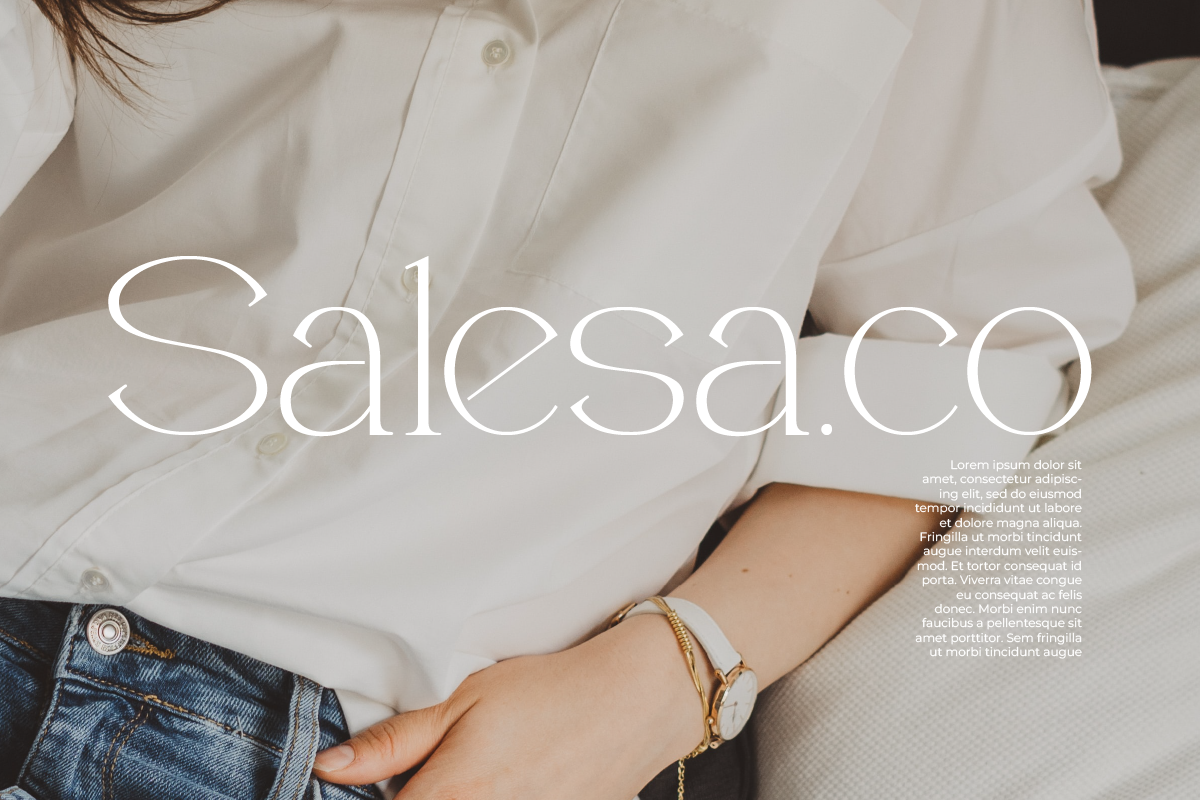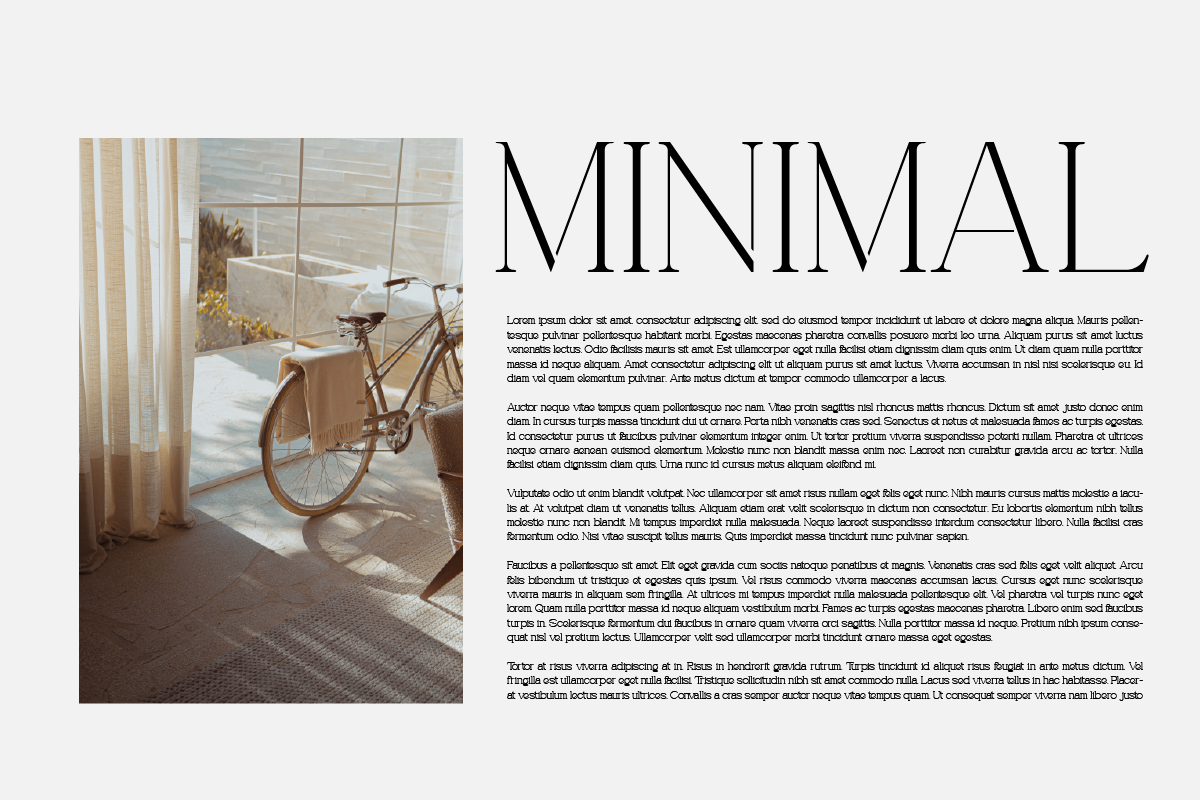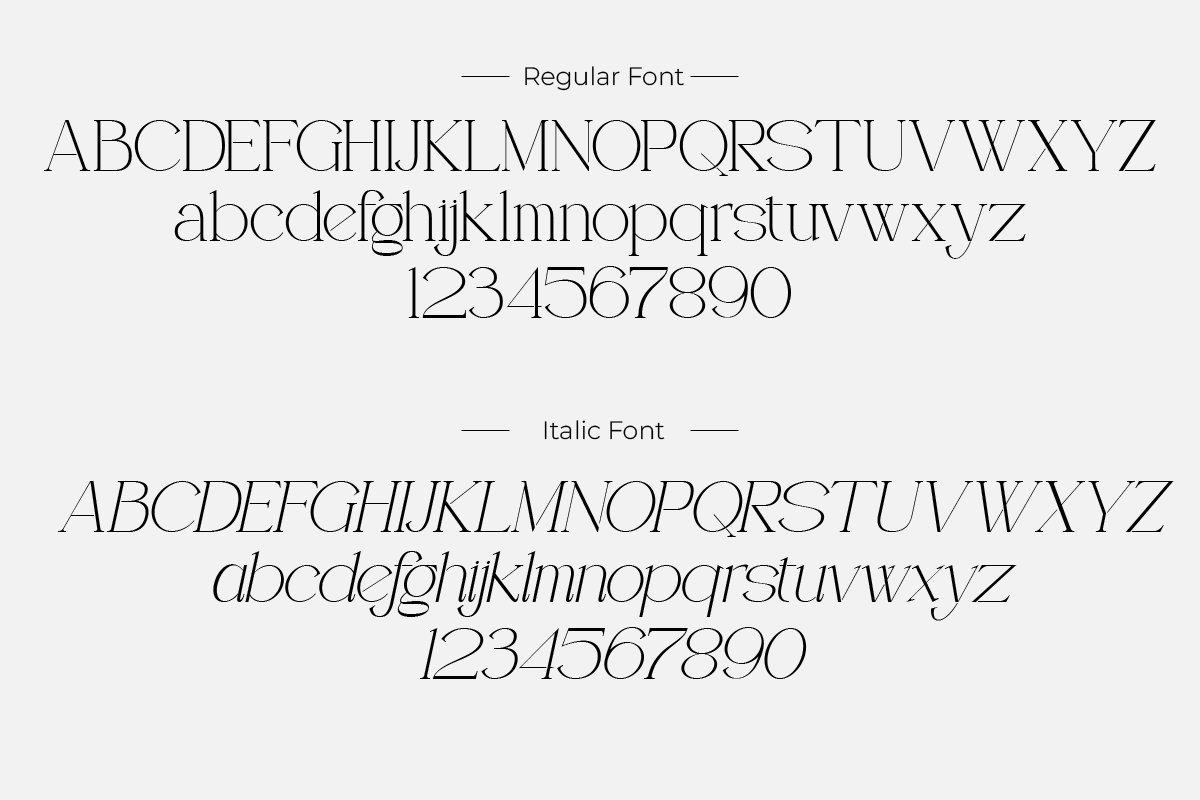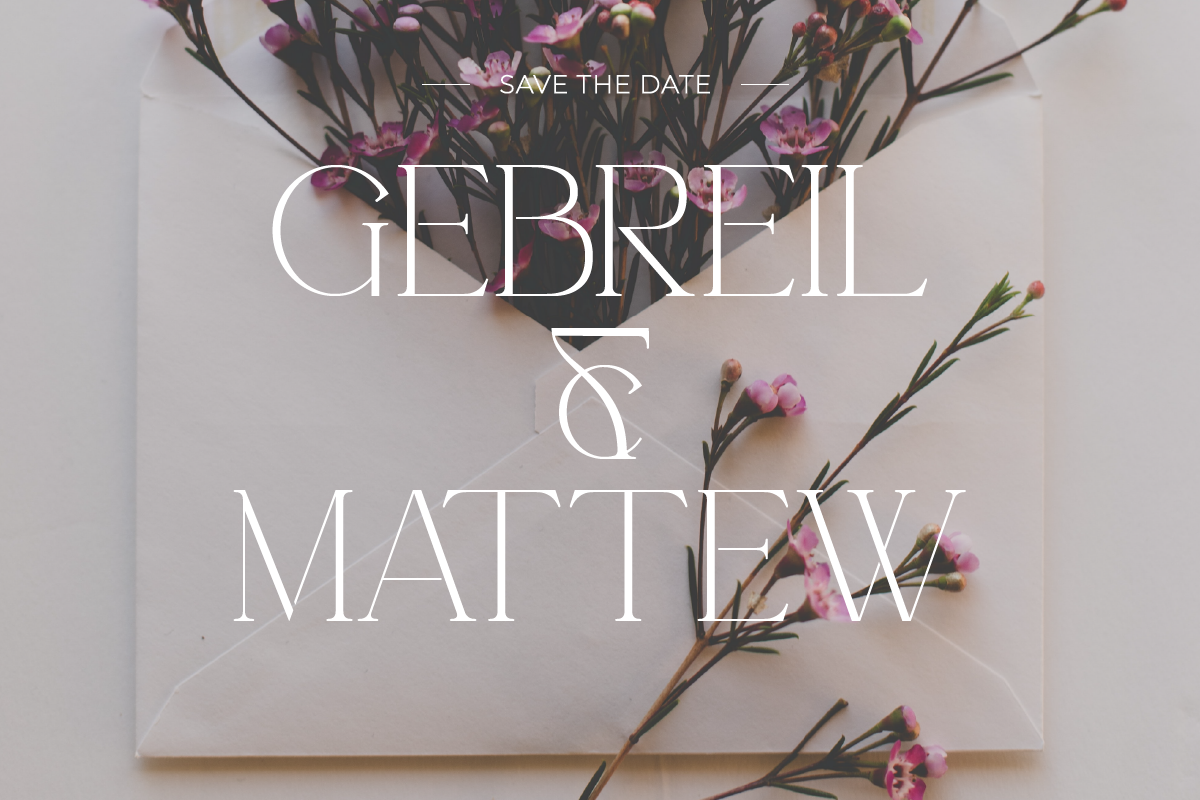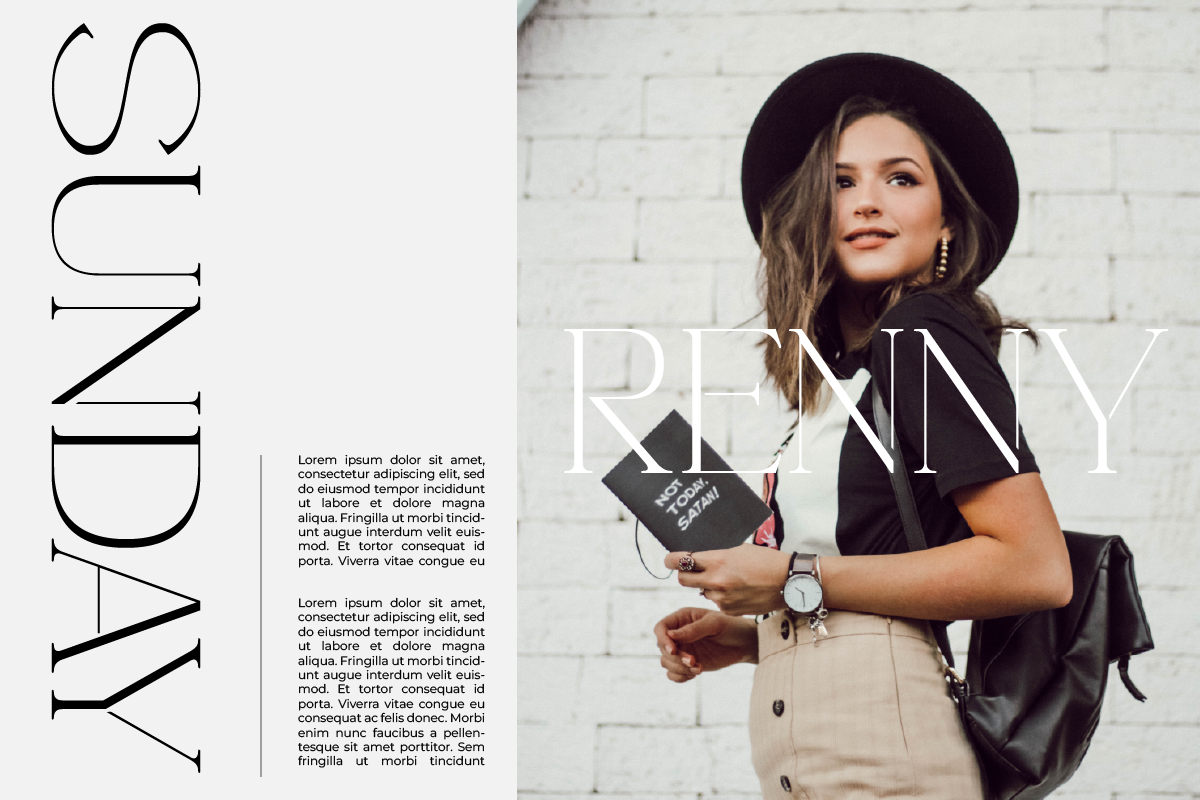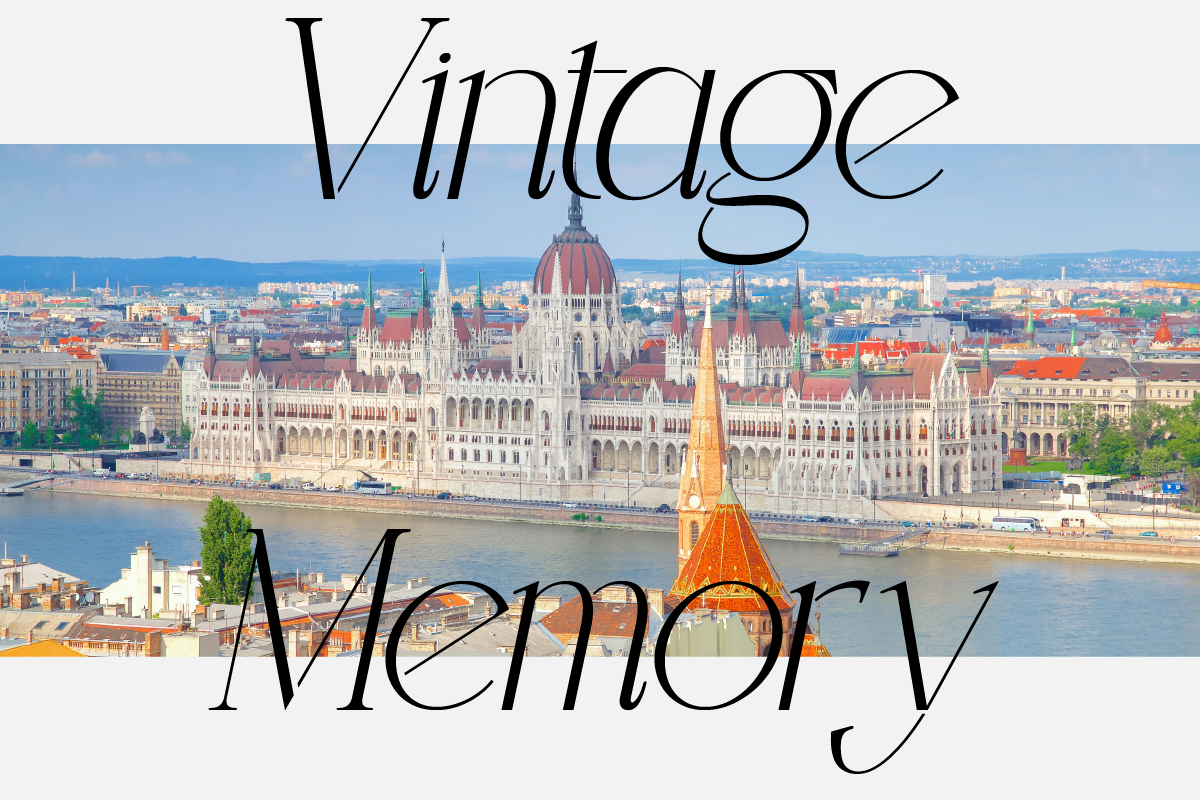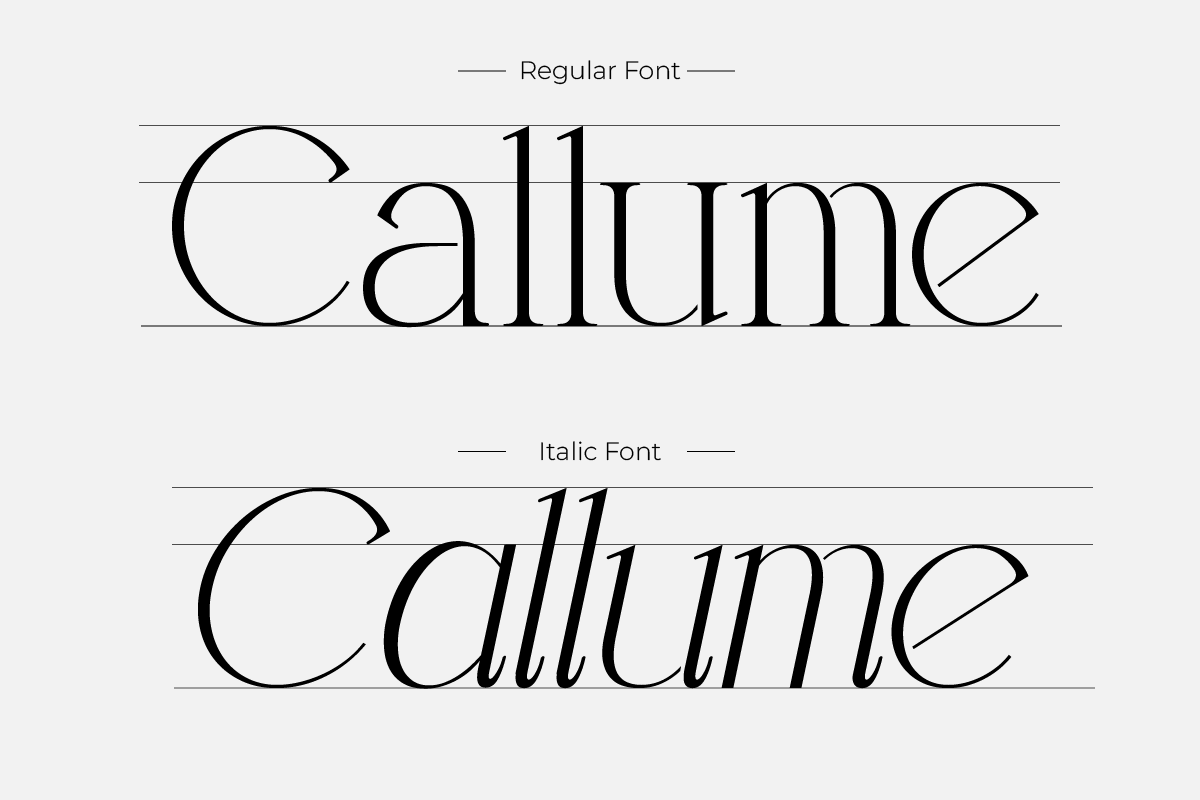
Callume
Callume is a modern-style font that blends serif elements with a contemporary touch. With its clean and elegant design, this font offers two main styles: regular and italic. Each letter in the Callume font is meticulously crafted to convey a professional and modern impression in any design. The sophistication of this serif font makes it suitable for various design projects, including modern-themed branding logos. With its clarity and readability, Callume is the perfect choice for enhancing the appearance and impact of any design.